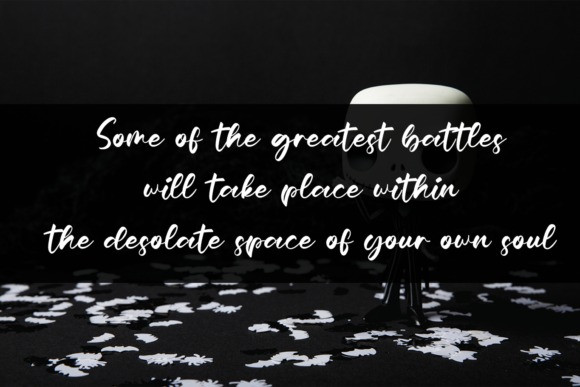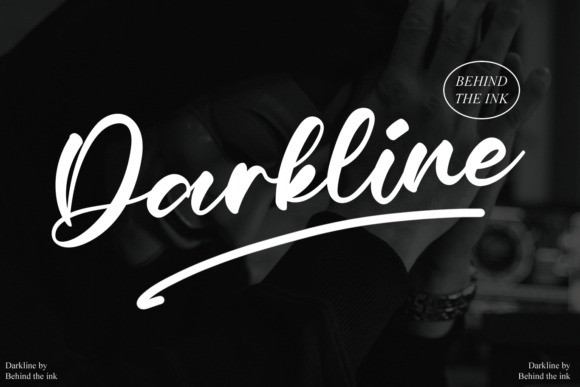
Darkline Font
Darkline Font is a lovely script font featuring charming, playful characters that seem to dance along the baseline. Add this font to your most creative ideas, and notice how it makes them stand out!